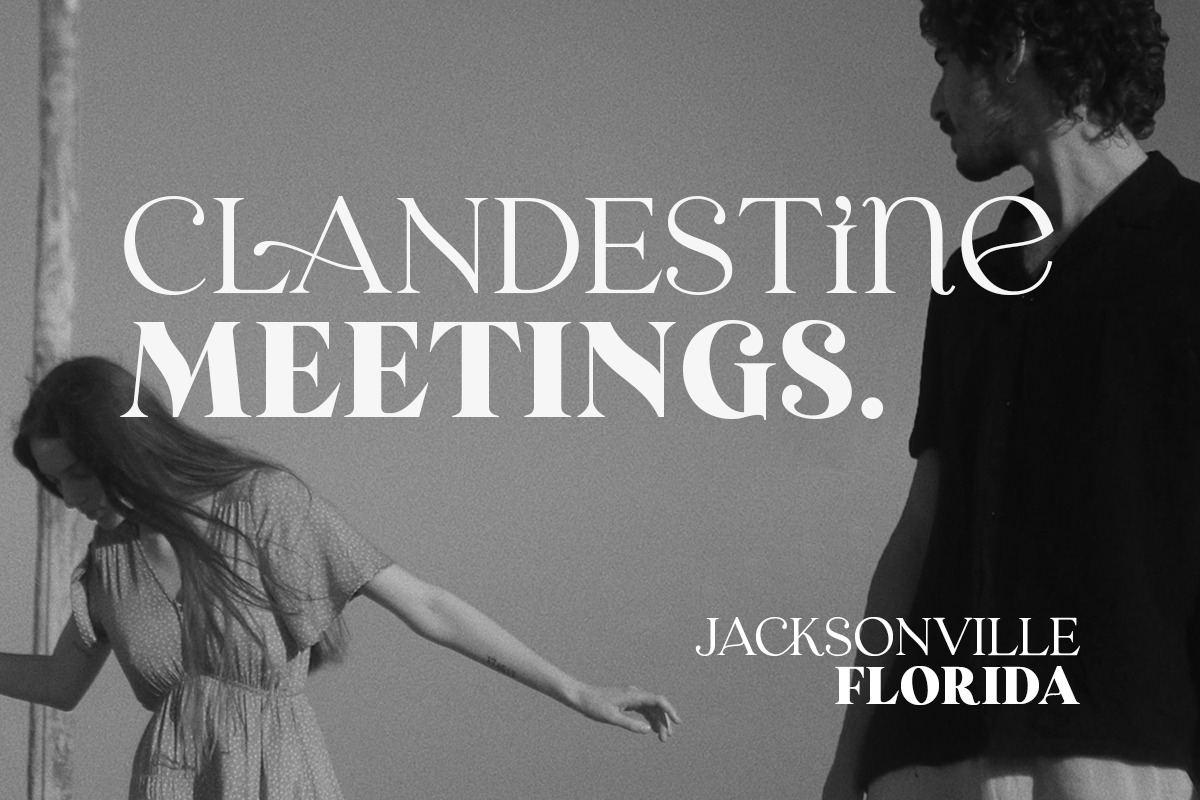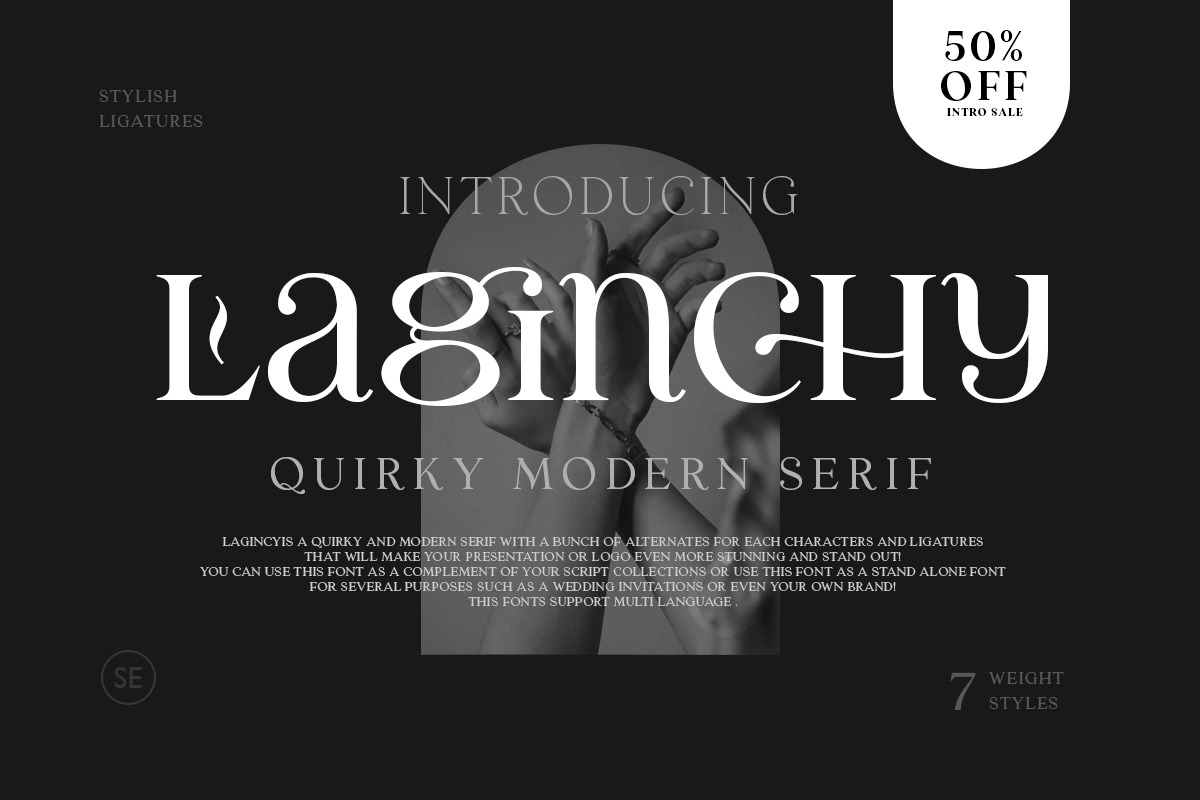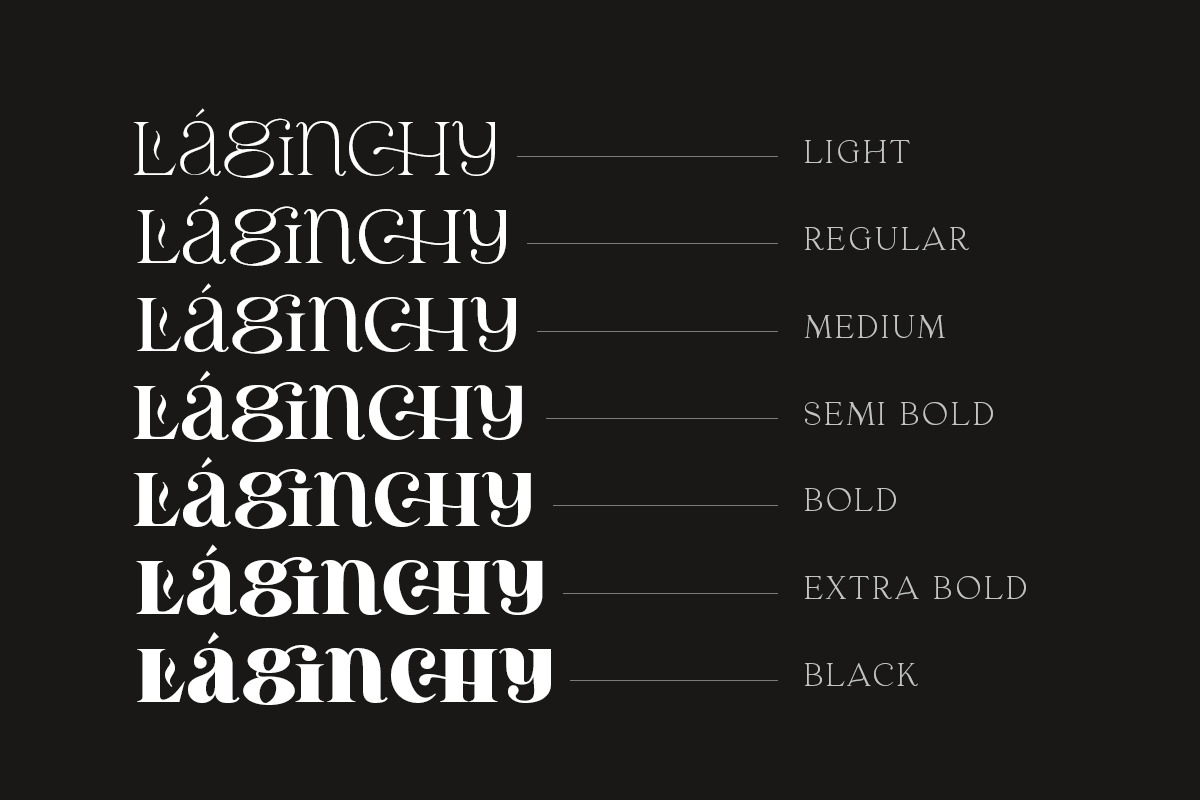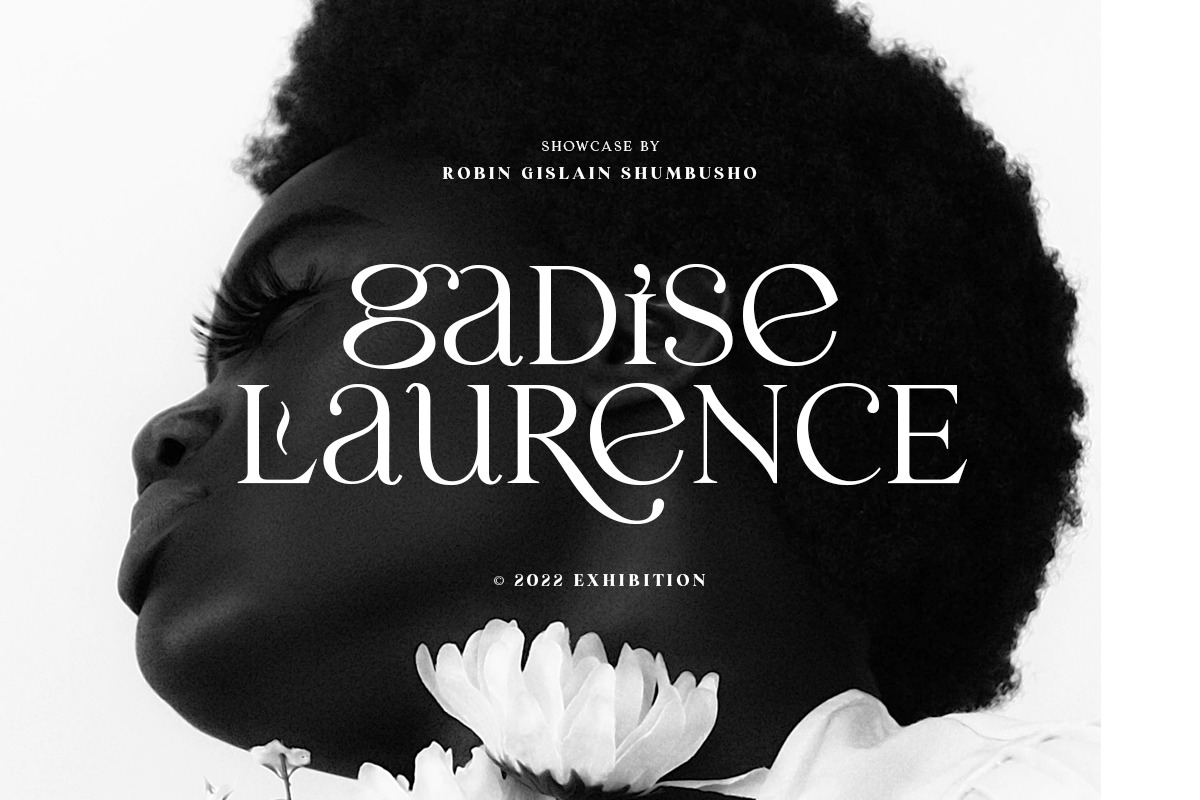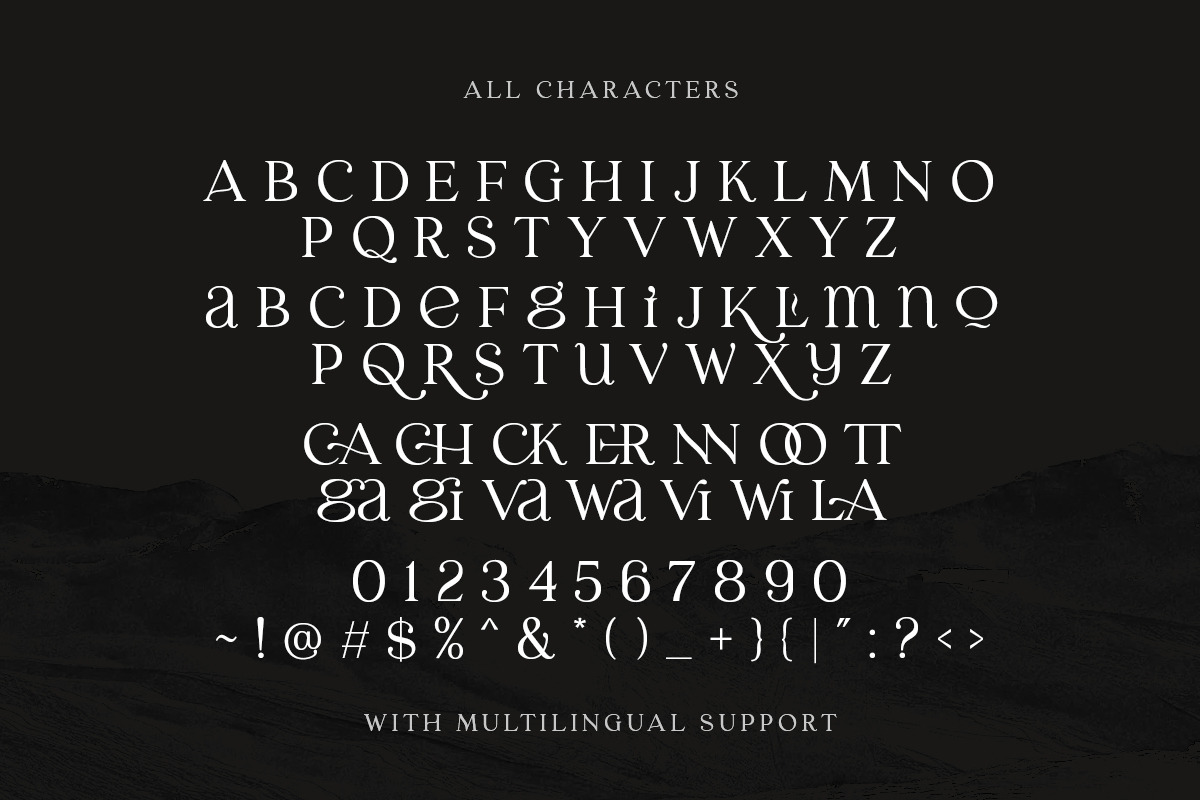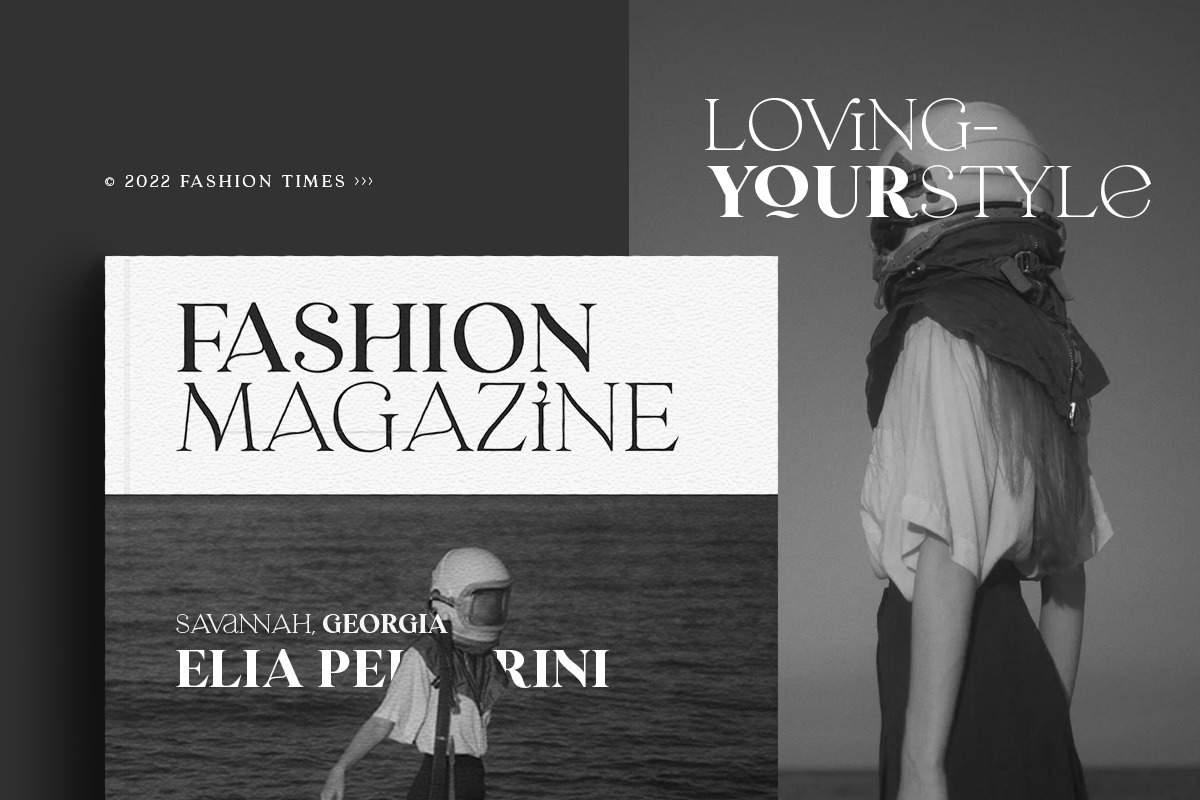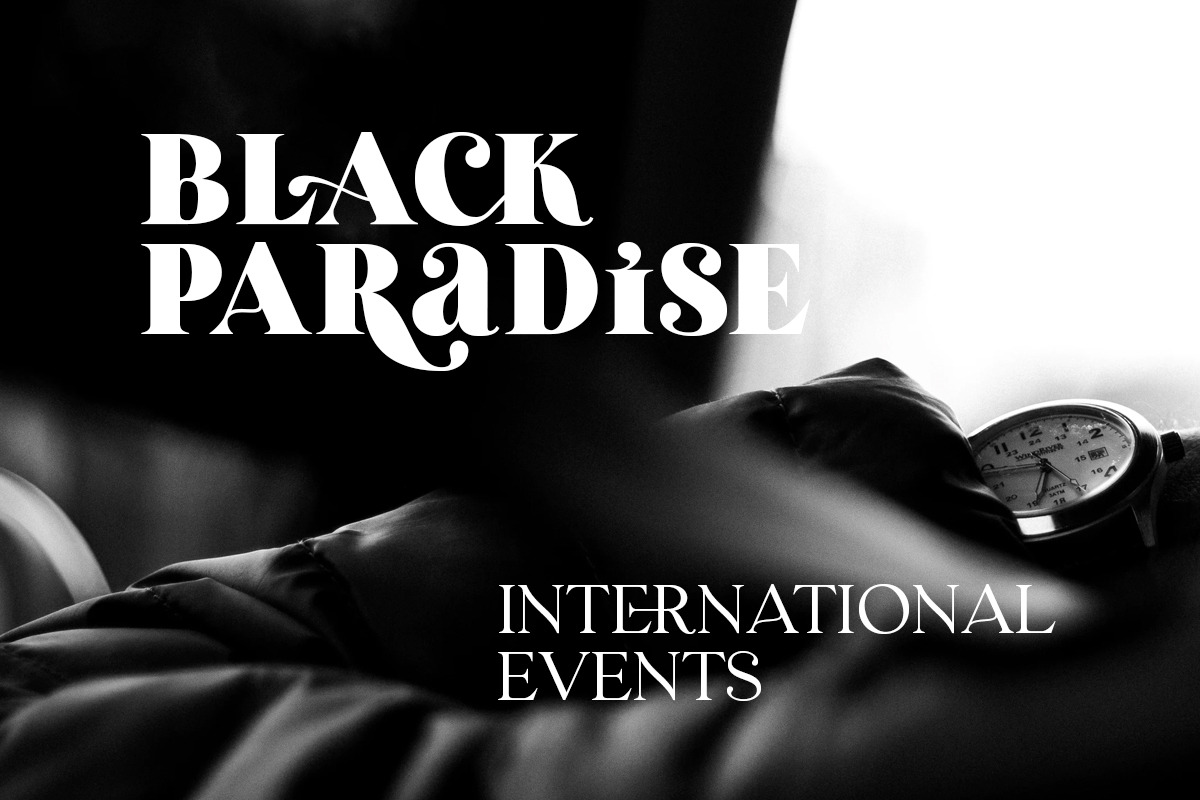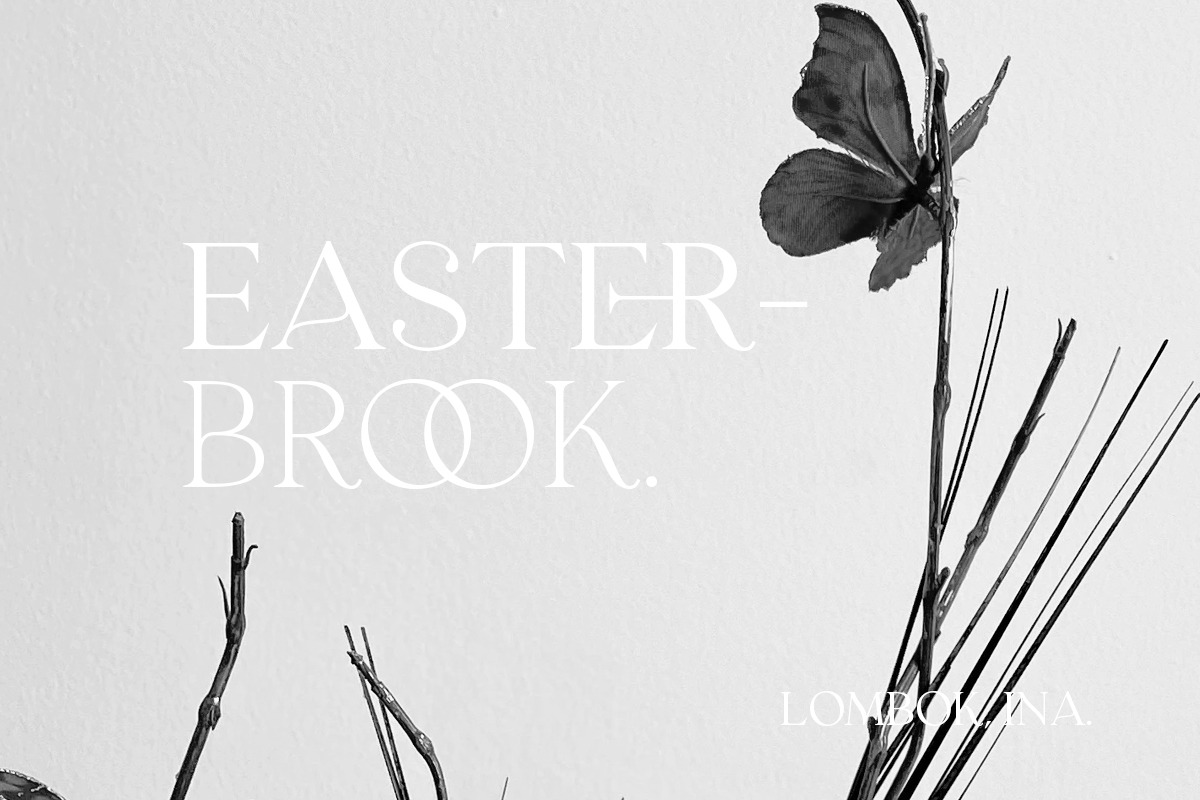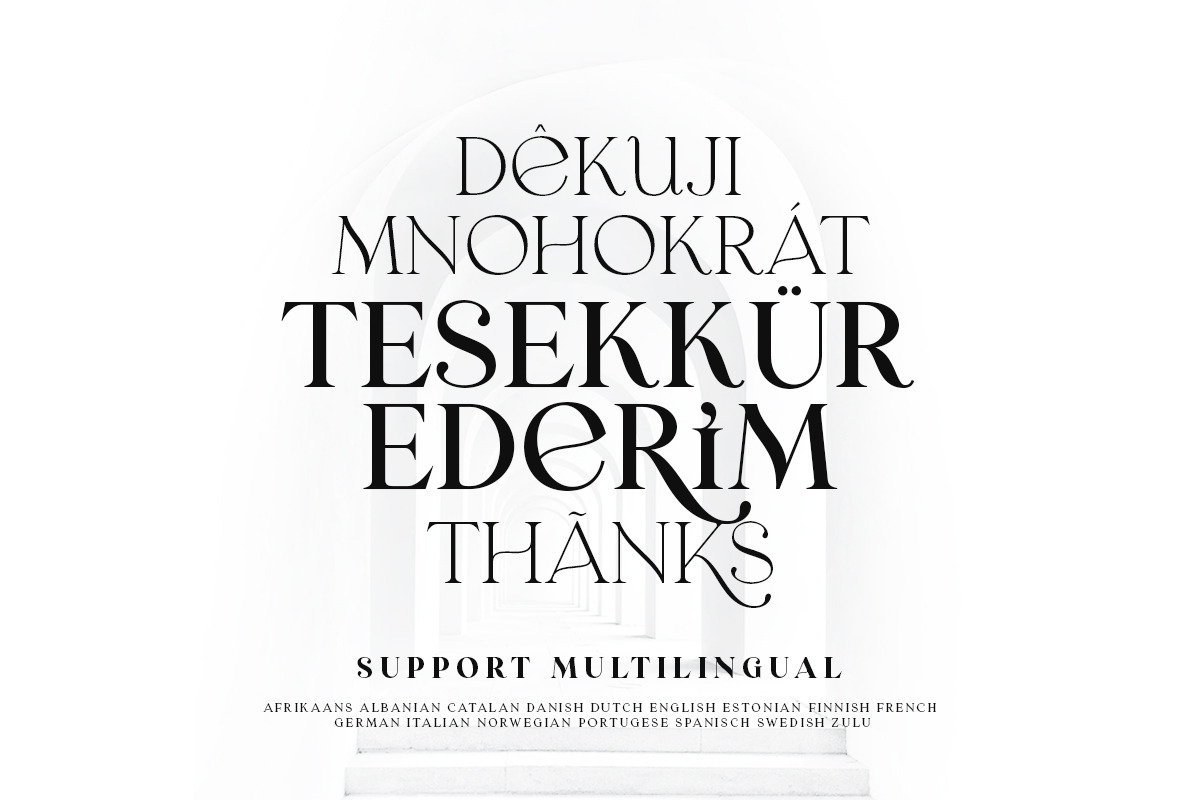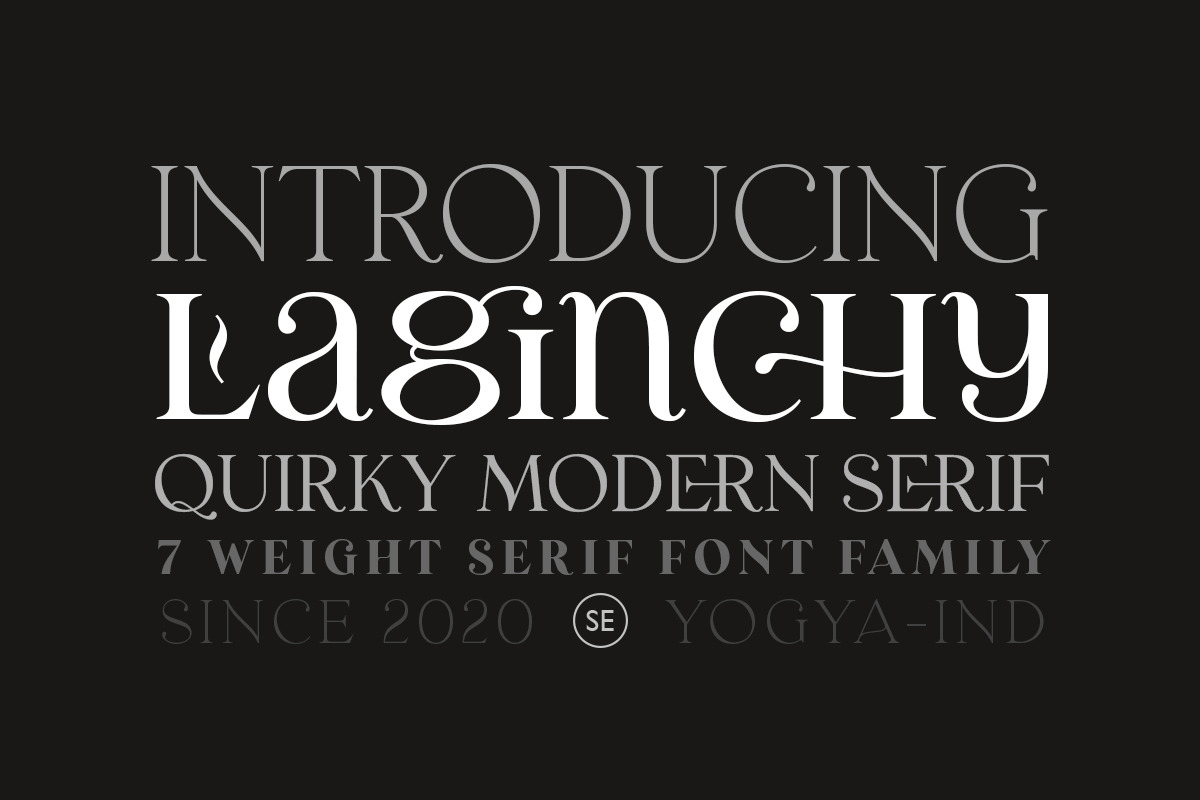
Laginchy - Quirky Serif
Introducing, Laginchy - a quirky serif with 7 weight style!
Laginchy is a quirky and modern serif with 7 weight style. With unique lowercase, this fonts will make your presentation, poster, or logo even more stunning and stand out! Also comes with stylish ligatures! This fonts support Multi Language and already PUA Encoded!
- Uppercase with unique lowercase
- Multi language
- Stylish ligatures